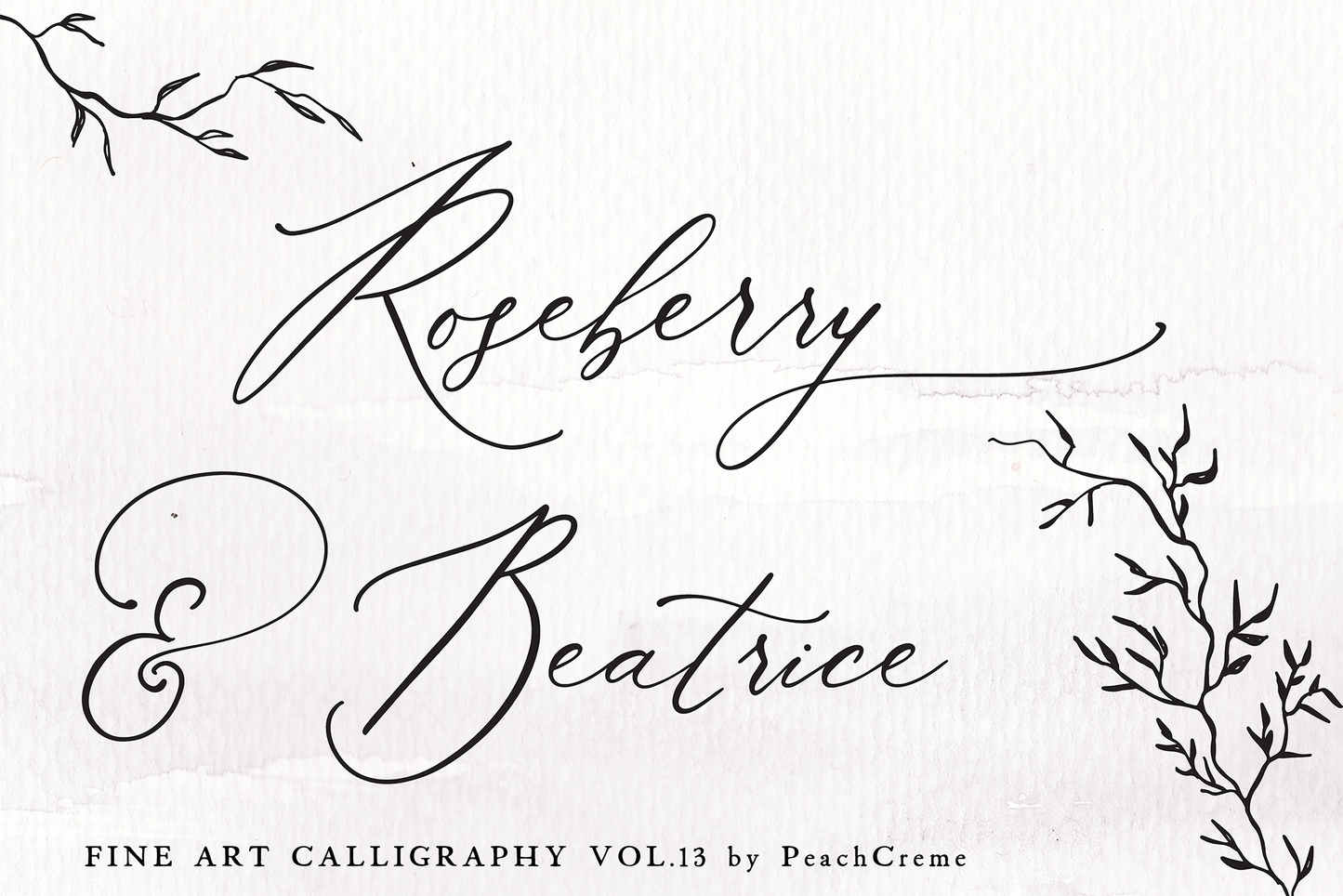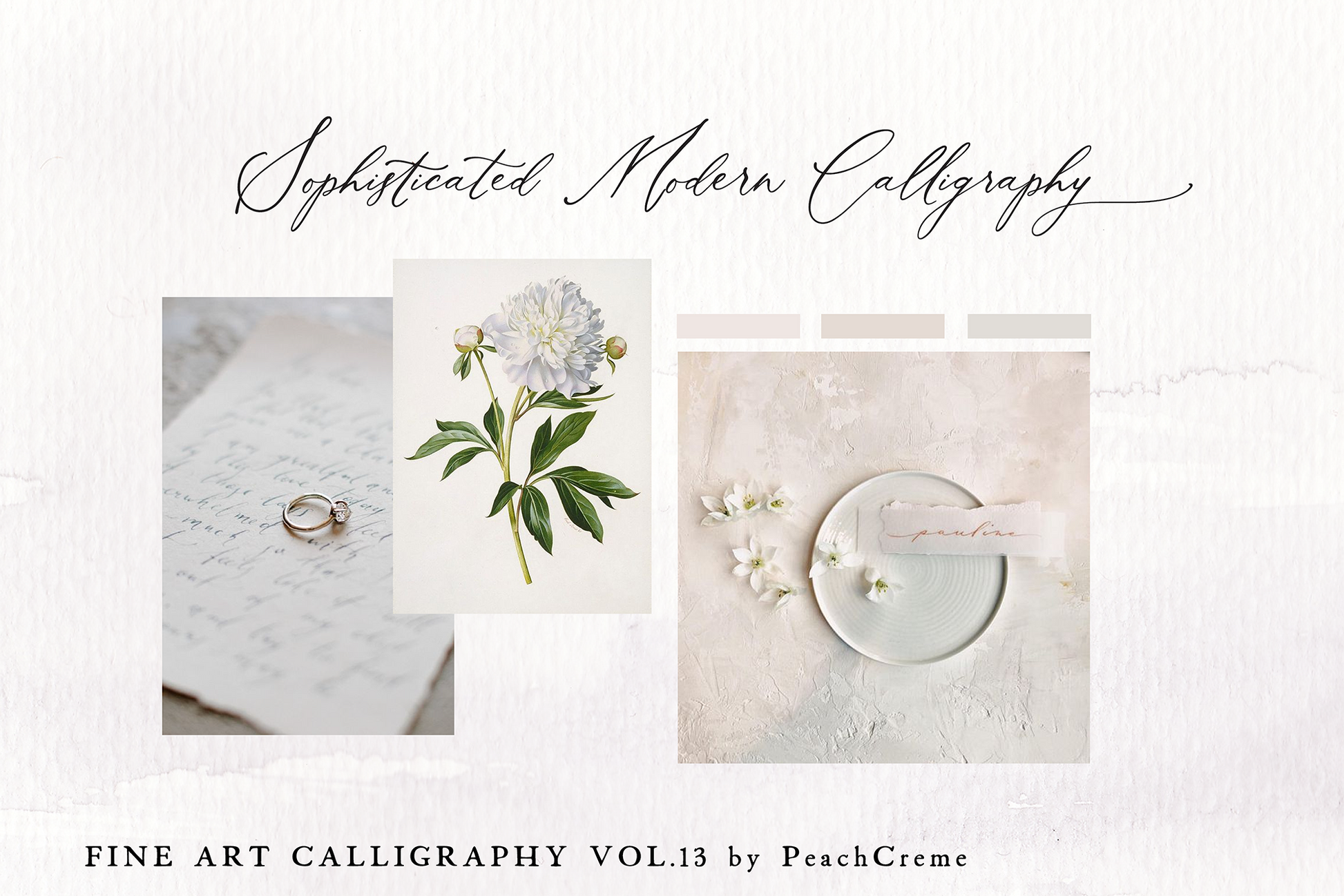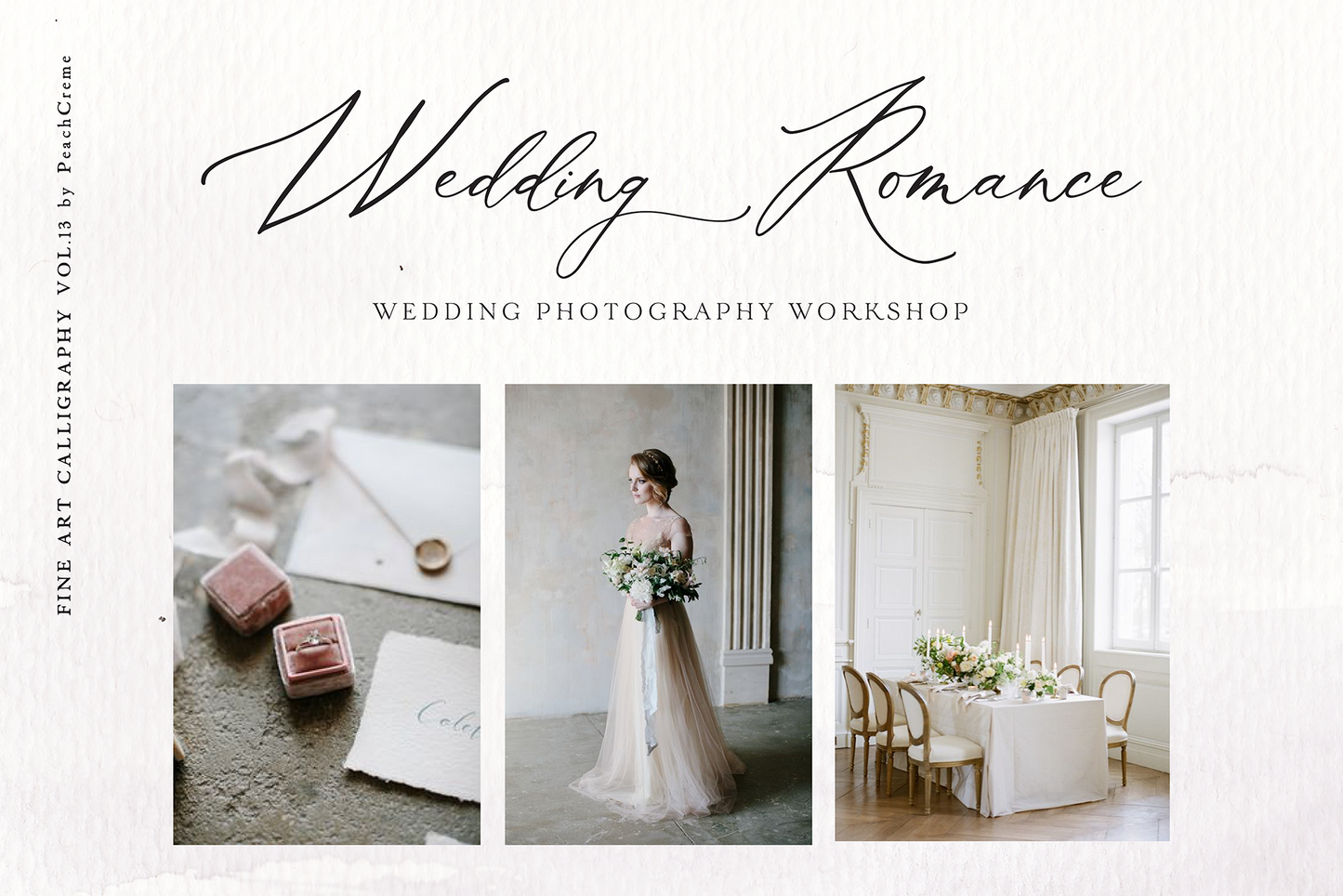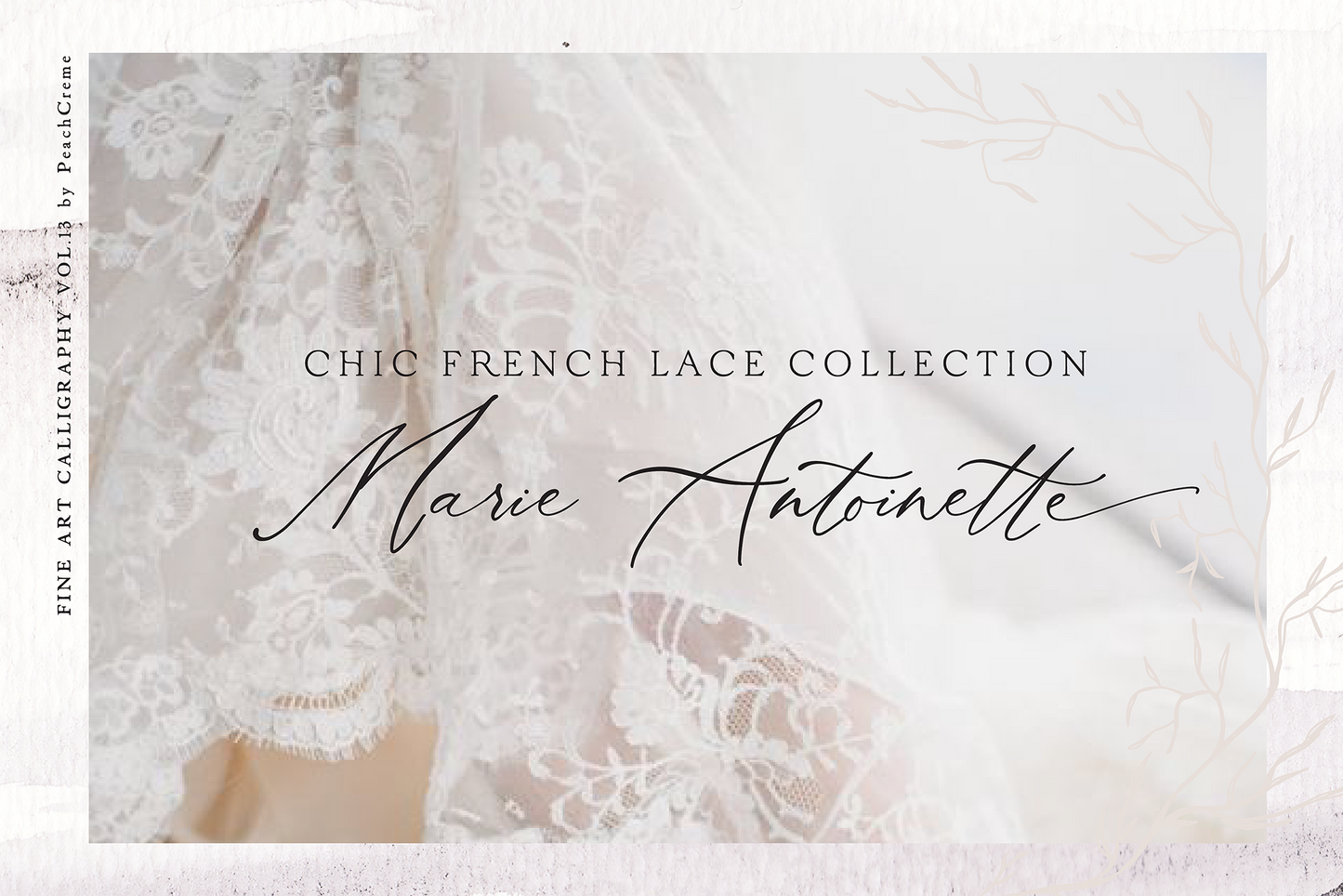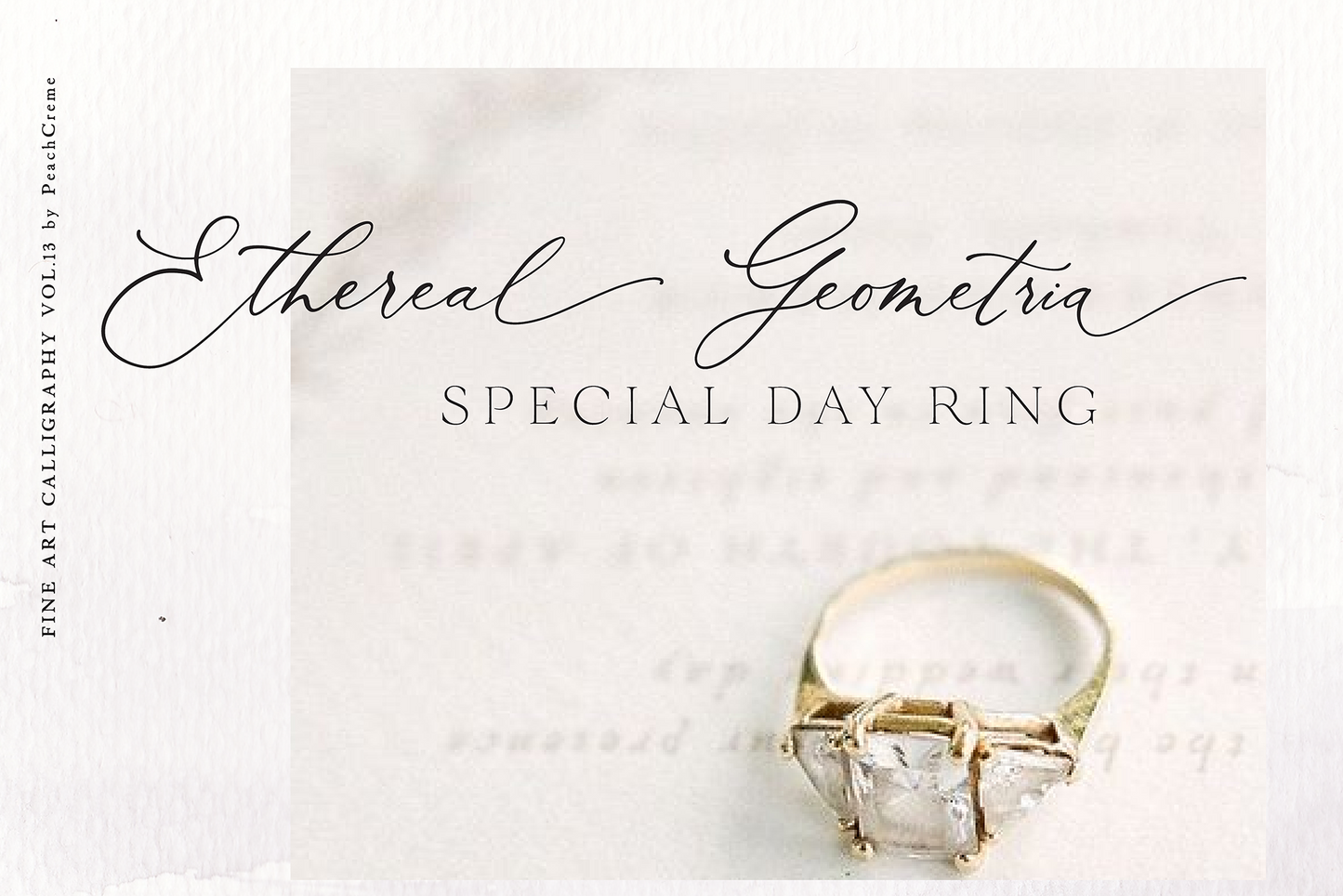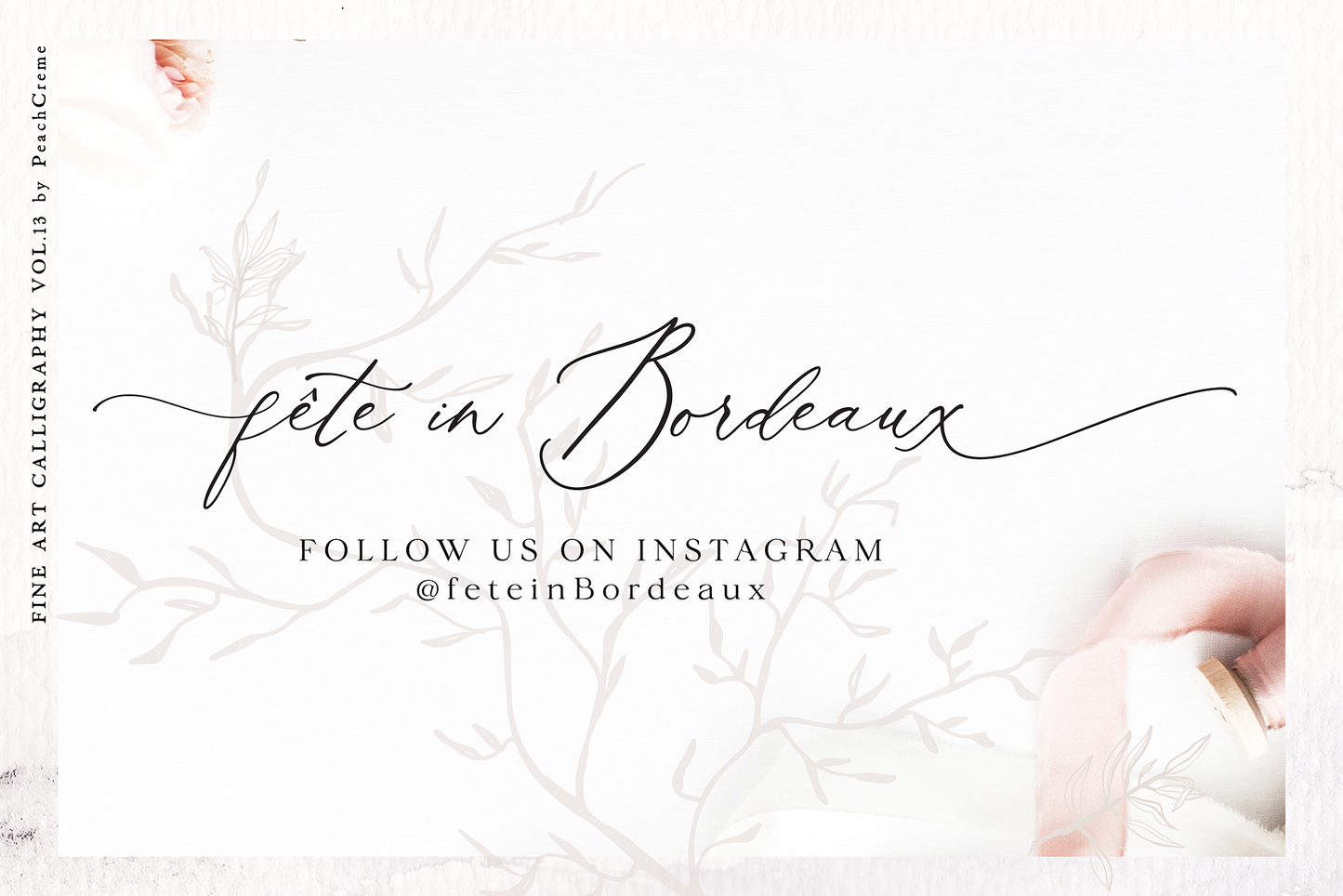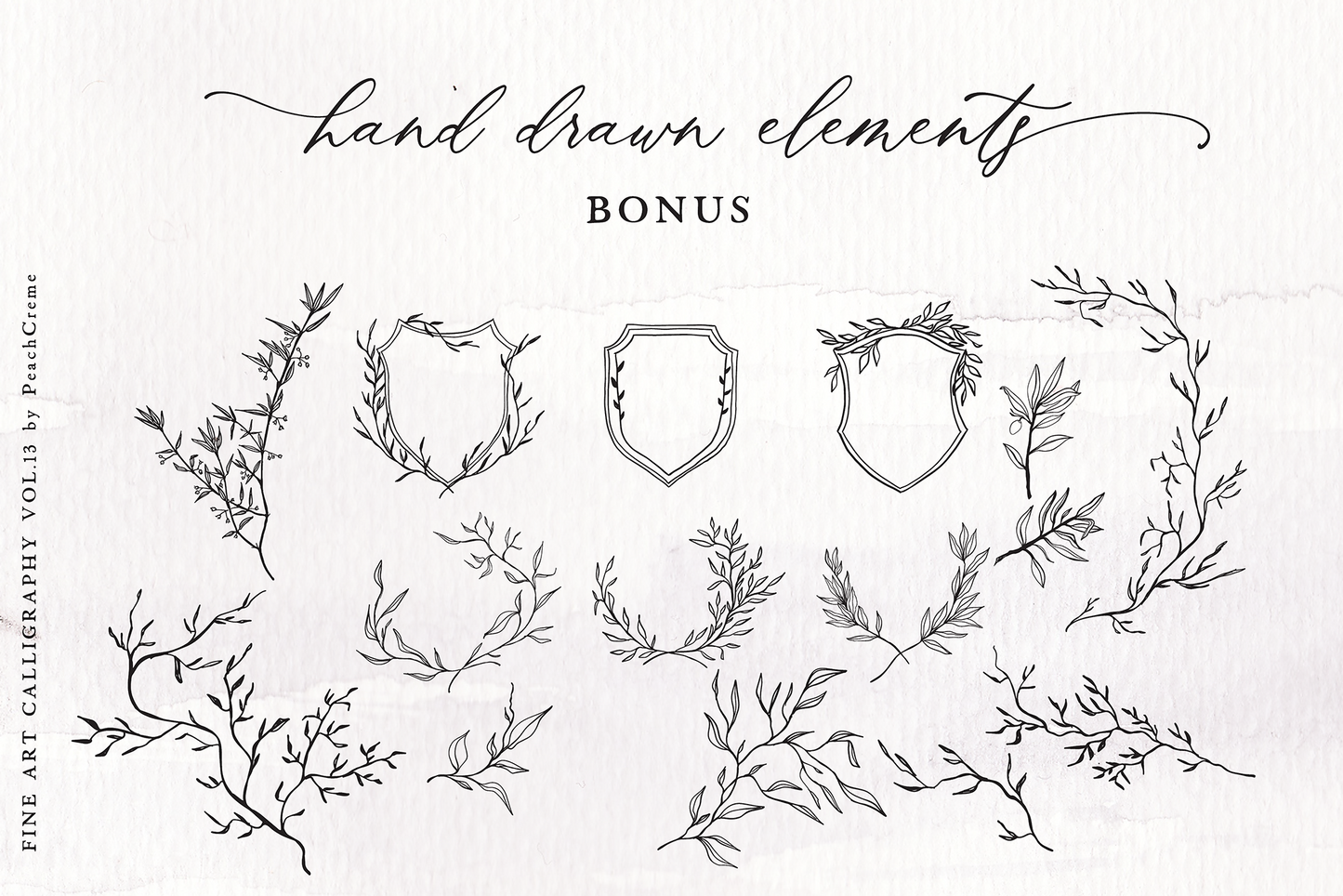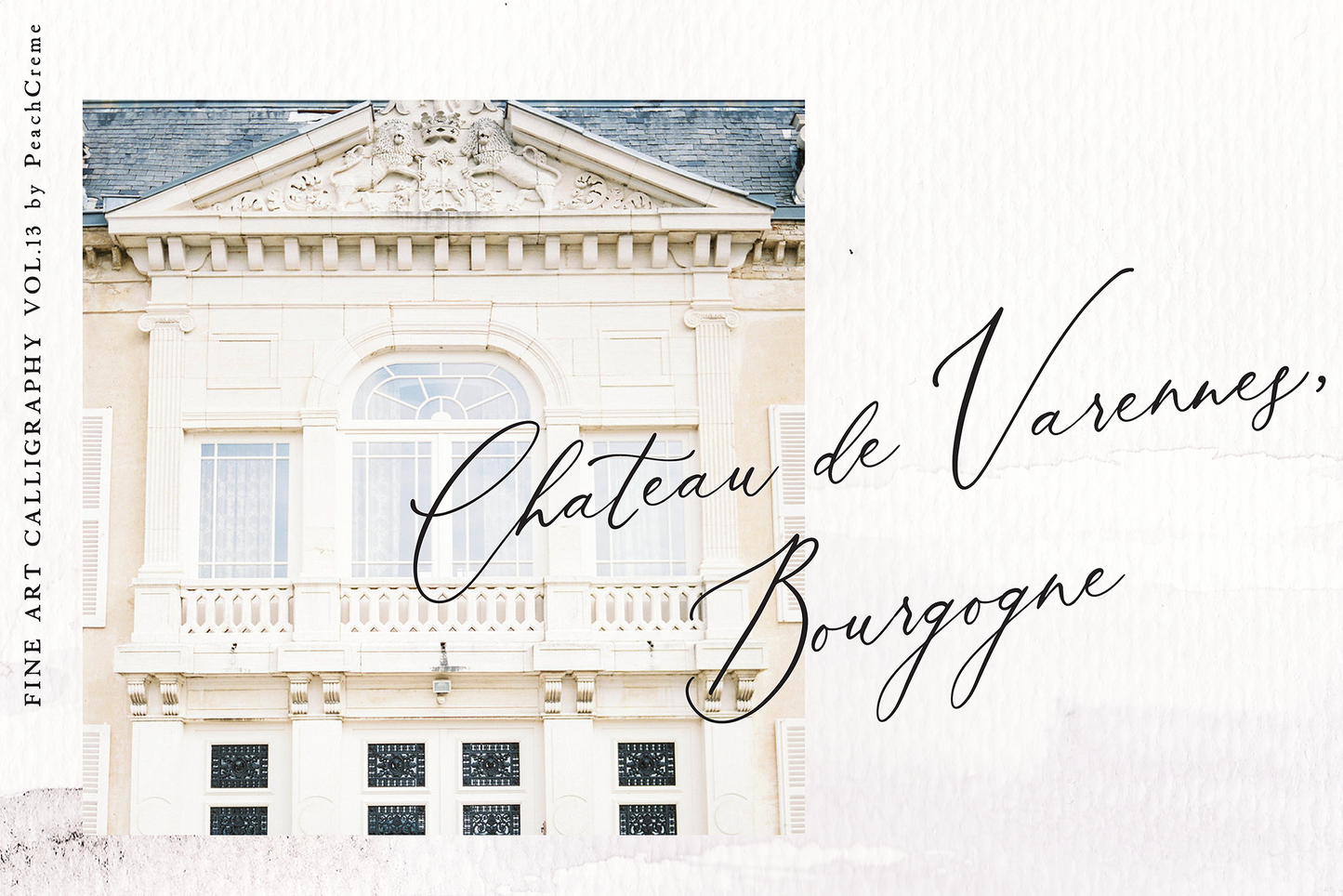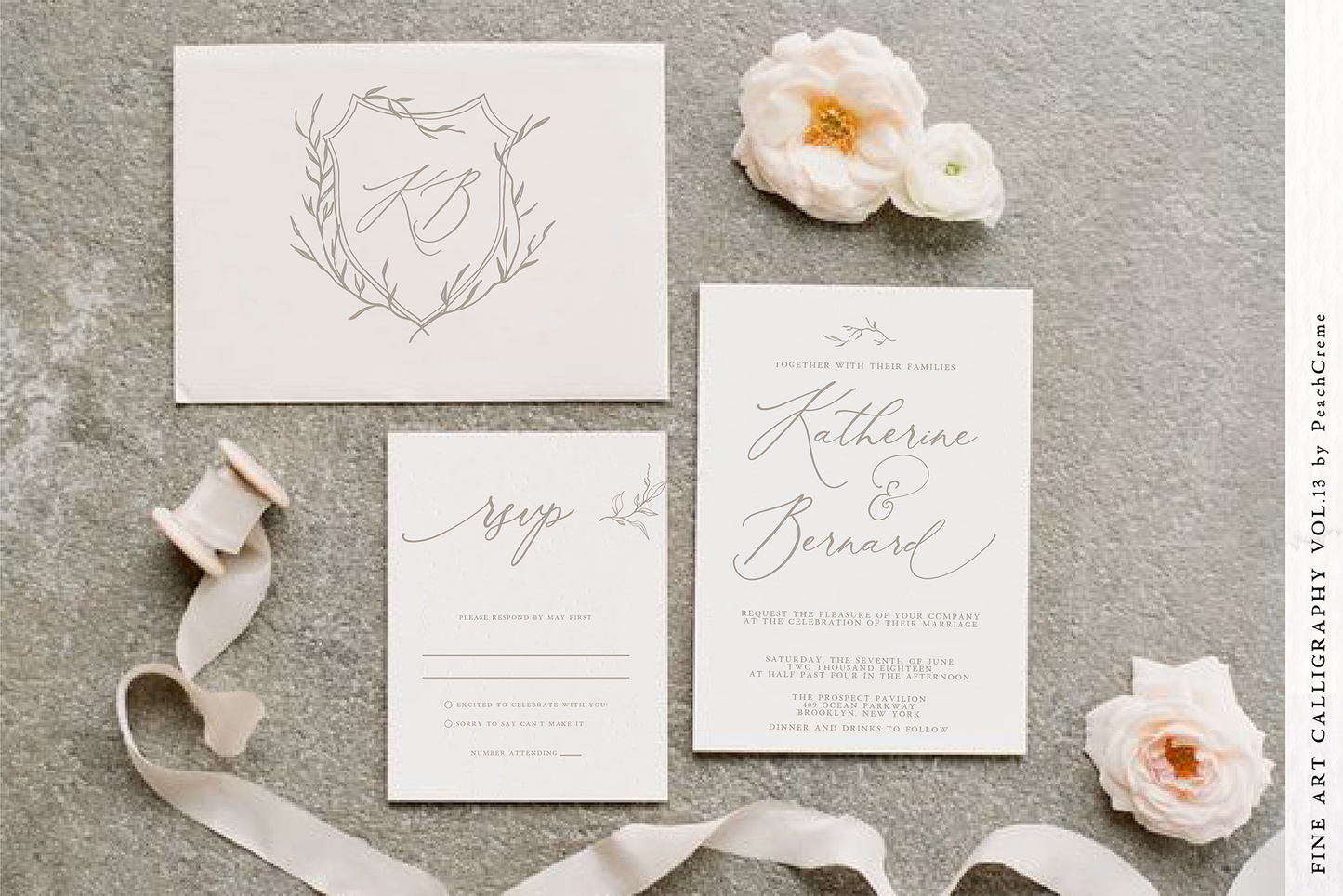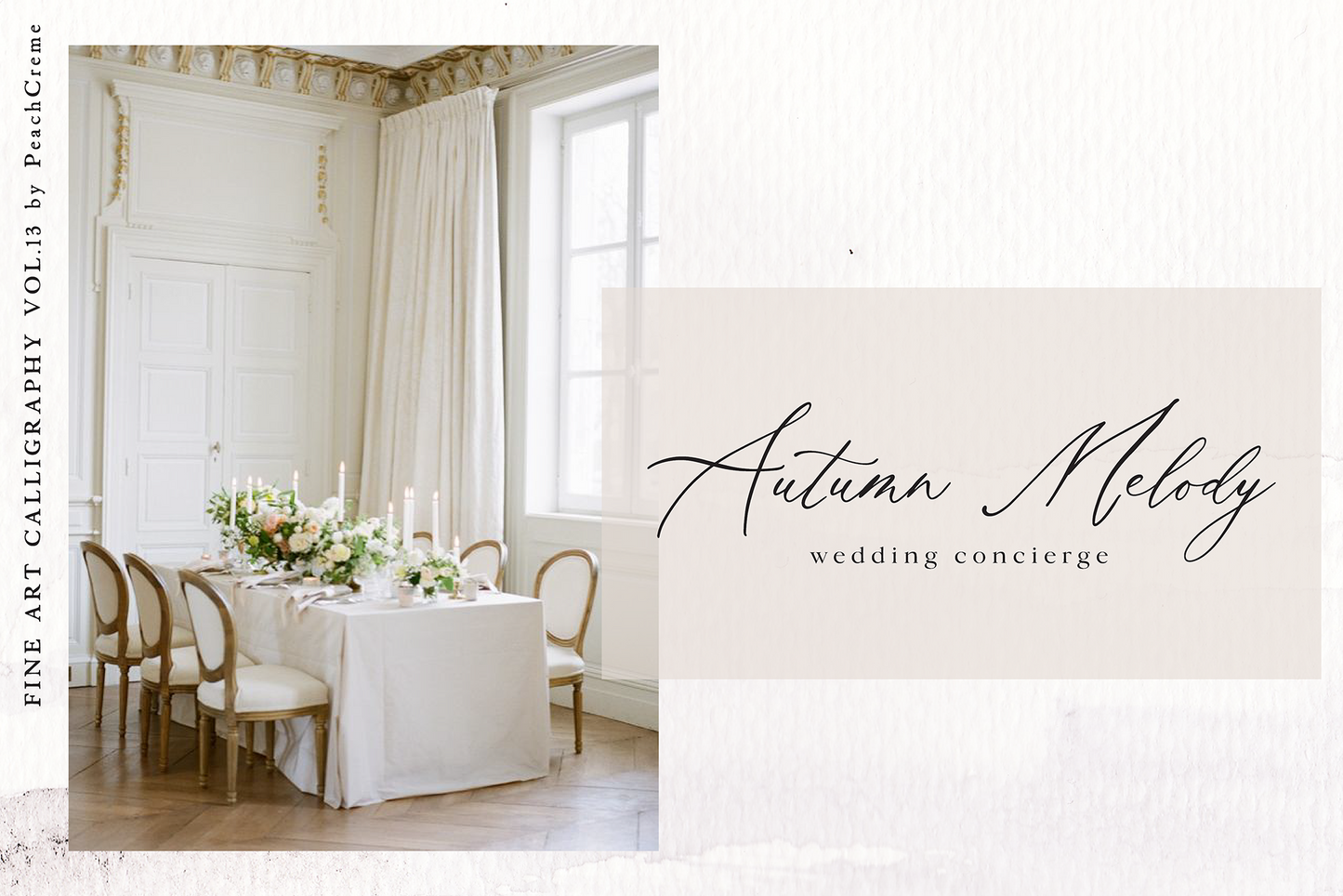
Roseberry & Beatrice Font
FINE ART TYPOGRAPHY VOL.13
"Roseberry & Beatrice" is an airy, refined modern calligraphy font with contemporary, sophisticated accents. It is perfect for branding, wedding invites and cards.
"Roseberry & Beatrice" includes full set of gorgeous uppercase and lowercase letters, numerals, a large range of punctuation and ligatures. All lowercase letters include beginning and ending swashes, giving realistic hand-lettered style. All swashes are hand drawn, so the swash length are not symmetrical. For example, the swash lenght for letter a is different than letter b. The font has smooth texture, so would be perfect for all types of printing techniques+you can do embroidery, laser cut, gold foil etc.